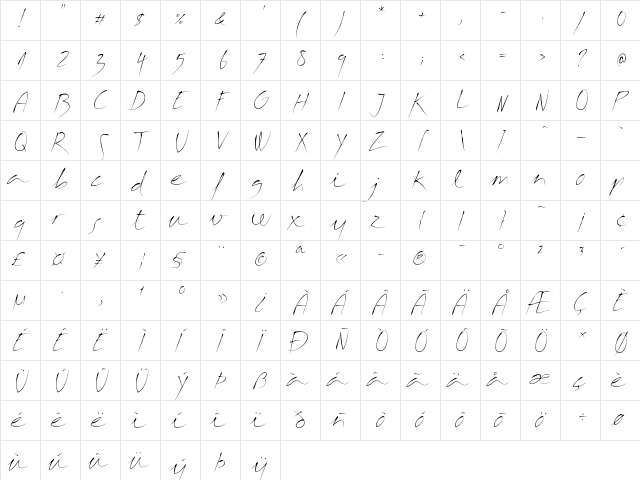
Margalida Font Regular
Design Context for Margalida Font Typeface
Margalida Font is a composed and adaptable typeface that performs quietly and consistently across a wide range of design contexts.